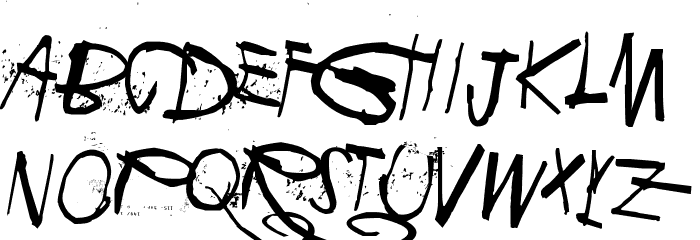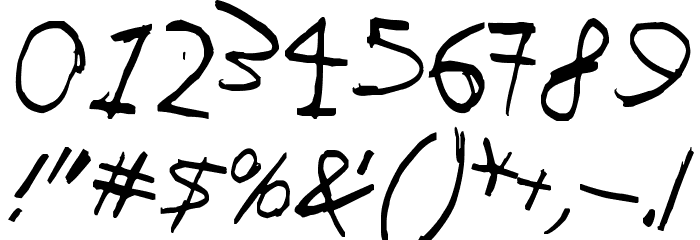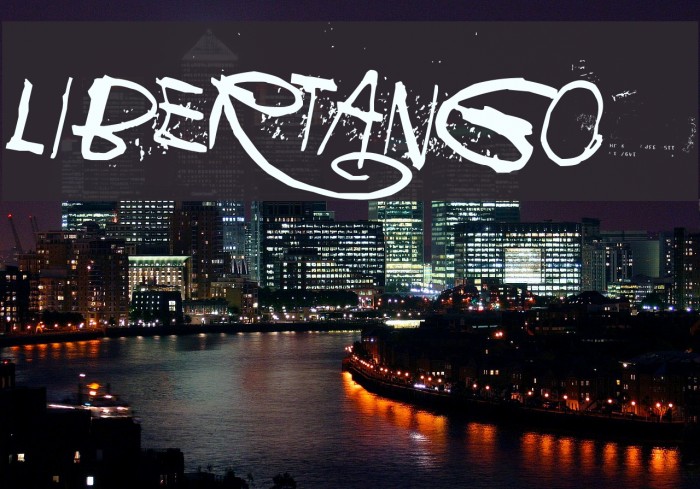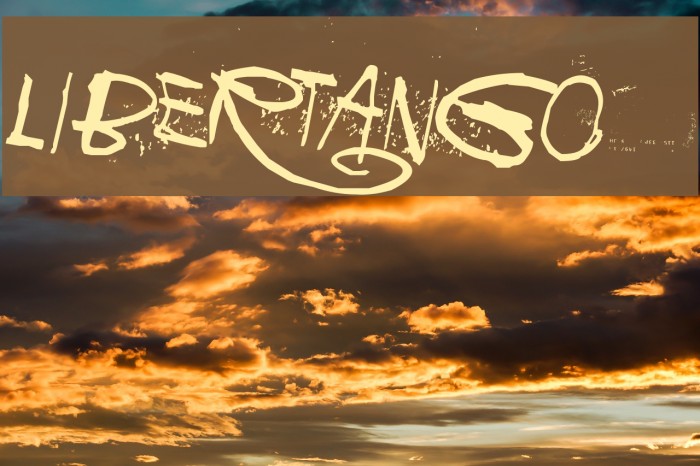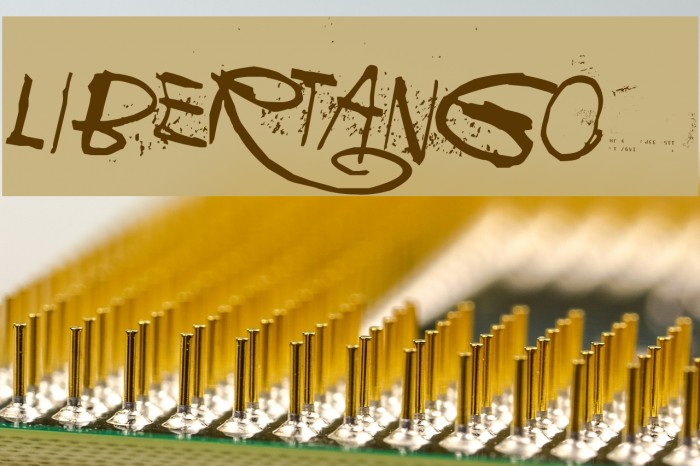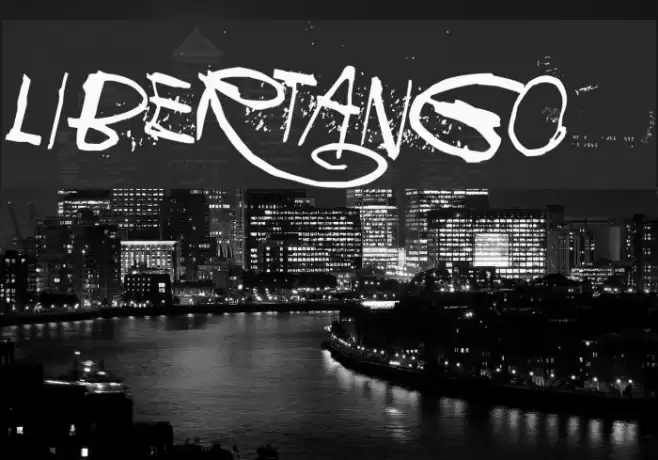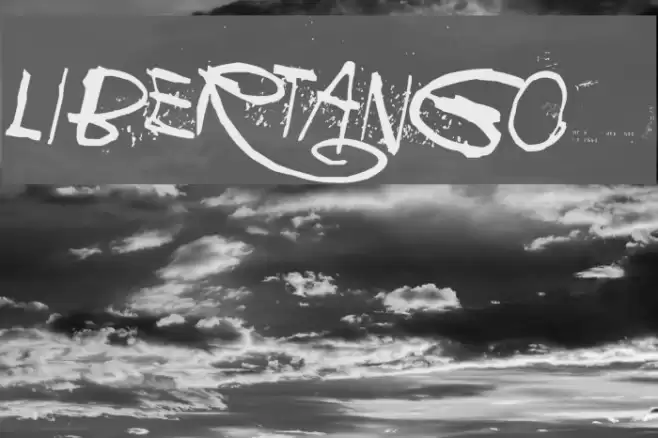
Libertango Font
This font exhibits a bold, expressive style with a handwritten appearance. The characters are irregular and dynamic, with a sense of movement and energy. The strokes are thick and vary in width, giving the font a high contrast. The letters are slightly slanted, adding to the informal and artistic feel. The uppercase and lowercase letters maintain a consistent style, while the numbers and special characters are equally bold and distinctive. This font's unique and artistic design makes it stand out, suitable for creative and unconventional projects.
A bold, expressive handwritten font with high contrast and dynamic strokes.
- Proposed Projects: Ideal for artistic projects, posters, album covers, and any design requiring a bold, creative touch.
- Use Case: Logos, Posters, Creative projects